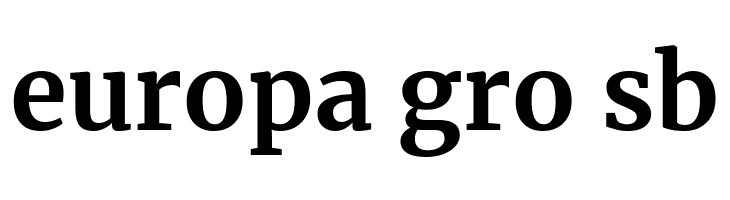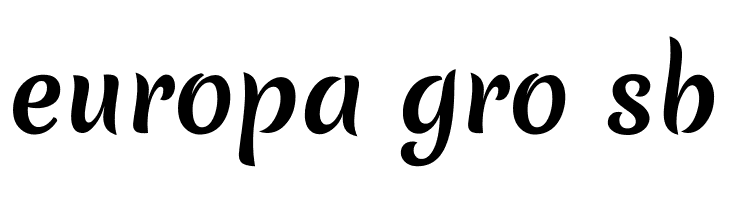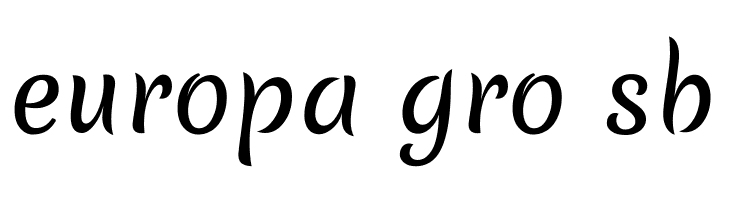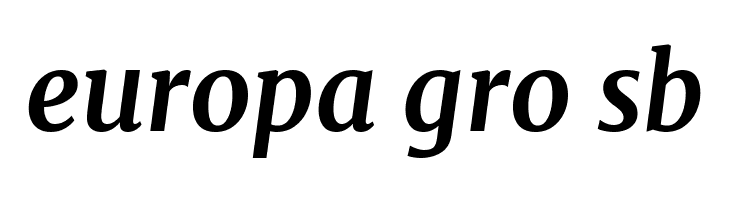
A playful, casual script font with a handwritten feel and smooth, rounded strokes.
A bold, playful script font with a friendly and inviting style.
A playful, handwritten-style font with smooth, rounded strokes.
A playful, casual script font with a handwritten feel and smooth, rounded strokes.
A modern serif typeface with high contrast and elegant serifs.
A bold serif font with strong strokes and pronounced serifs, offering a modern yet classic look.
A bold, italic serif font with high contrast and classic elegance.
A bold serif typeface with high contrast and elegant serifs.
A bold, italic serif font with a classic yet dynamic style.